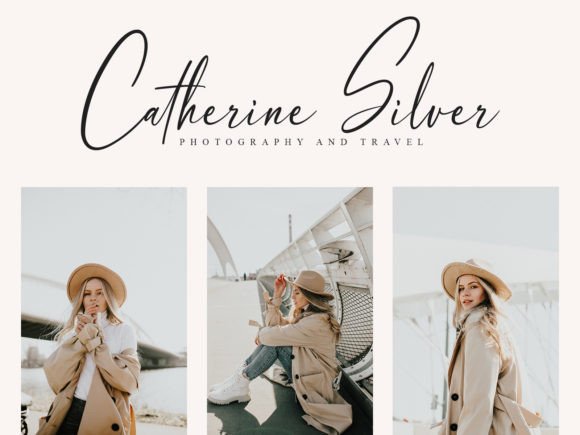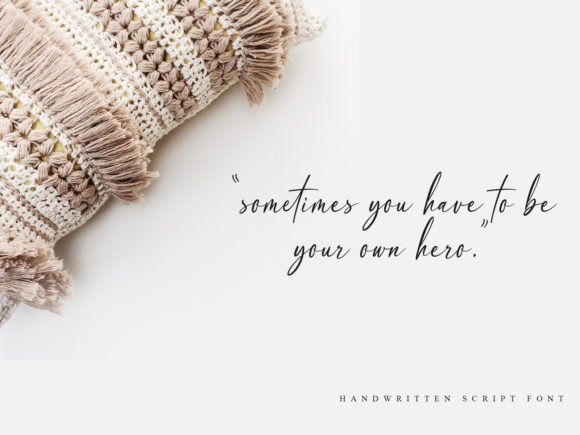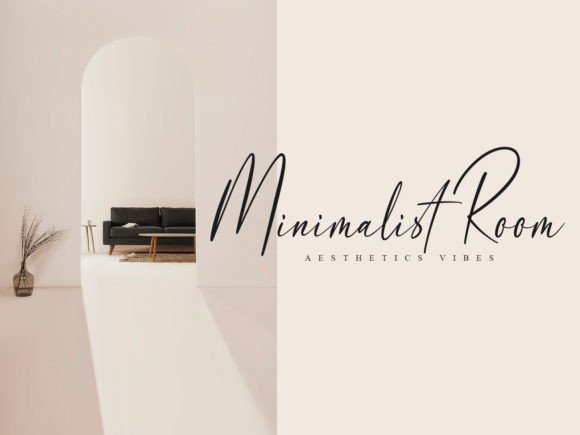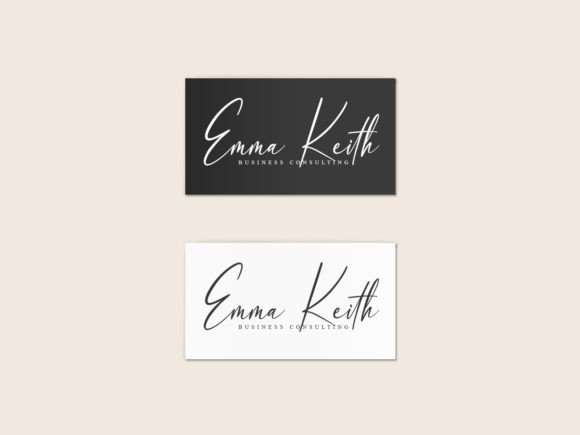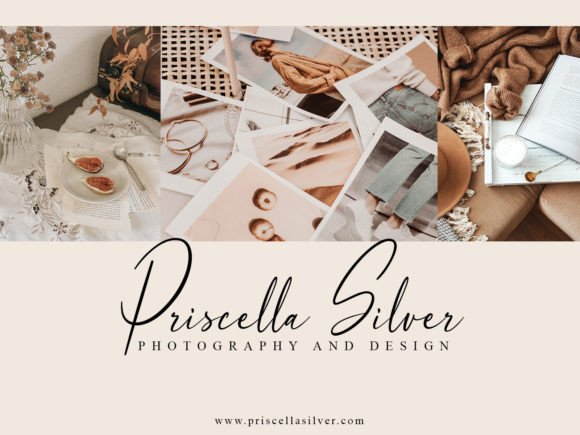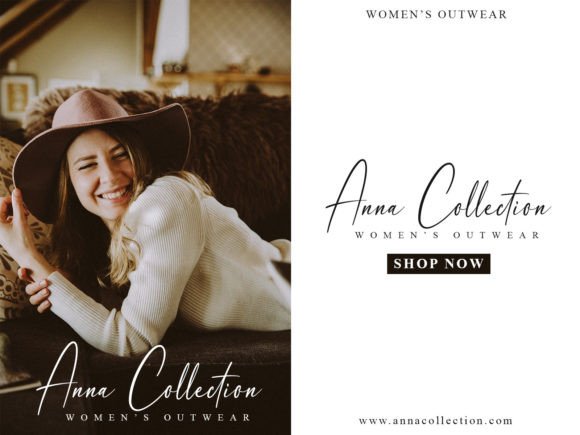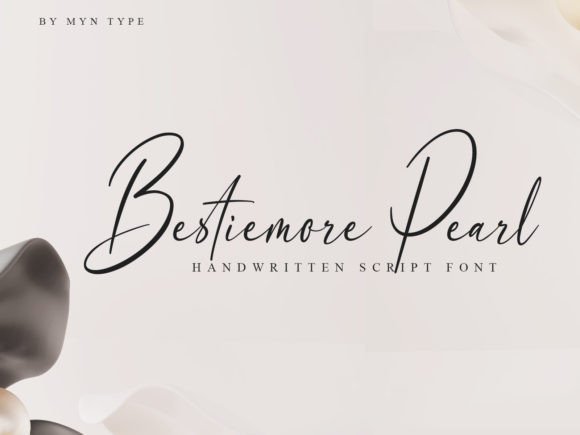
Introducing Bestiemore Pearl: The Ultimate Classy Handwritten Script Font
Are you a designer, crafty person, or simply someone who appreciates beautiful typography? Look no further! Bestiemore Pearl is a stunning handwritten script font that can elevate your creative projects to the next level. This classy font is perfect for a wide range of applications, from product packaging and branding to magazines, social media posts, weddings, cards, logos, signatures, and more.
What Makes Bestiemore Pearl Special?
Bestiemore Pearl boasts a unique, elegant, and sophisticated design that is sure to capture attention. Its flowing script style is reminiscent of traditional calligraphy, but with a modern twist that makes it versatile and easy to read. The font’s intricate details and beautiful swashes make it perfect for adding a touch of luxury and refinement to any project.
Whether you’re a professional designer or a crafty person, Bestiemore Pearl is an excellent choice for a variety of creative projects. Here are some ideas to get you started:
• Product Packaging: Add a touch of elegance to your product packaging with Bestiemore Pearl. Whether you’re selling jewelry, cosmetics, or gourmet foods, this font is sure to make your products stand out.
• Branding: Create a lasting impression with Bestiemore Pearl. Use it to develop a unique brand identity that reflects your company’s values and personality.
• Magazines and Social Media: Use Bestiemore Pearl to add a touch of sophistication to your magazine articles, social media posts, and blog headers.
• Weddings and Cards: Make your wedding invitations, cards, and stationery truly special with Bestiemore Pearl. This font is perfect for expressing your love and gratitude in a beautiful and elegant way.
• Logos and Signatures: Create a professional and memorable logo or signature with Bestiemore Pearl. This font is perfect for entrepreneurs, artists, and freelancers who want to establish a strong brand identity.
Why Choose Bestiemore Pearl?
There are many script fonts available, but Bestiemore Pearl stands out from the rest. Here are some reasons why:
• Unique Design: Bestiemore Pearl boasts a unique and elegant design that is sure to capture attention.
• High-Quality: This font is designed with high-quality and precision, ensuring that it looks great in any size or application.
• Easy to Read: Despite its intricate details, Bestiemore Pearl is easy to read and understand, making it perfect for body text and headlines.
• Versatile: This font is versatile and can be used in a wide range of creative projects, from digital to print.
How to Use Bestiemore Pearl
Using Bestiemore Pearl is easy! Here are some tips to get you started:
• Pair it with Other Fonts: Pair Bestiemore Pearl with other fonts to create a unique and interesting contrast.
• Experiment with Colors: Try out different colors and textures to add depth and interest to your designs.
• Use it for Headlines and Titles: Use Bestiemore Pearl for headlines and titles to add a touch of elegance and sophistication.
• Don’t Forget the Swashes: Don’t forget to use the swashes and flourishes that come with Bestiemore Pearl to add a touch of luxury and refinement to your designs.
Bestiemore Pearl is a stunning handwritten script font that can elevate your creative projects to the next level. With its unique design, high-quality, and versatility, this font is perfect for designers, crafty people, and anyone who appreciates beautiful typography. Whether you’re working on a product packaging, branding, magazine, social media post, wedding, card, logo, or signature, Bestiemore Pearl is an excellent choice. So why wait? Get creative with Bestiemore Pearl today!